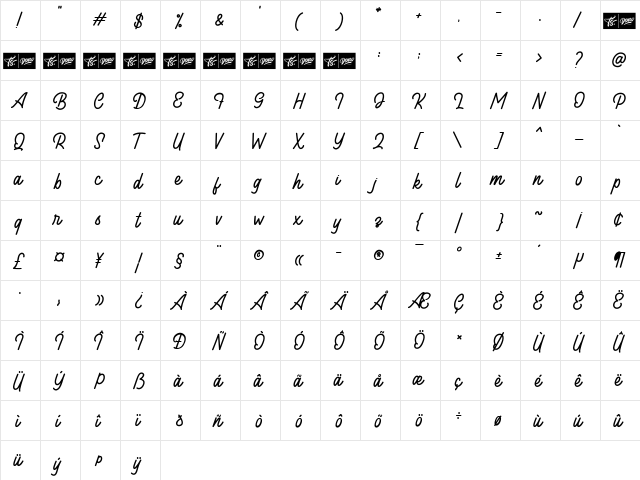
Arealand Regular
| Designer | Fahrul Arjianto |
Design Context for Arealand Typeface
Arealand offers clean, dependable letterforms without strong stylistic allegiance, making it a practical choice for designers who need flexibility.